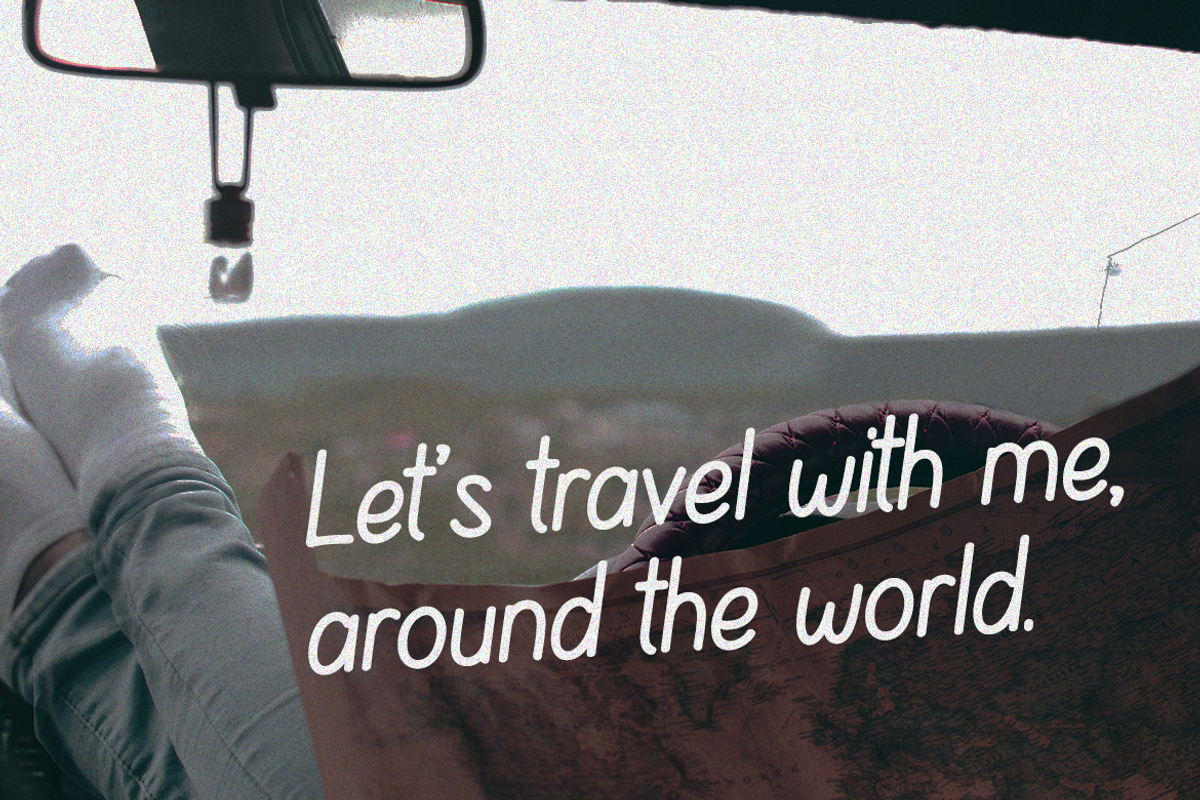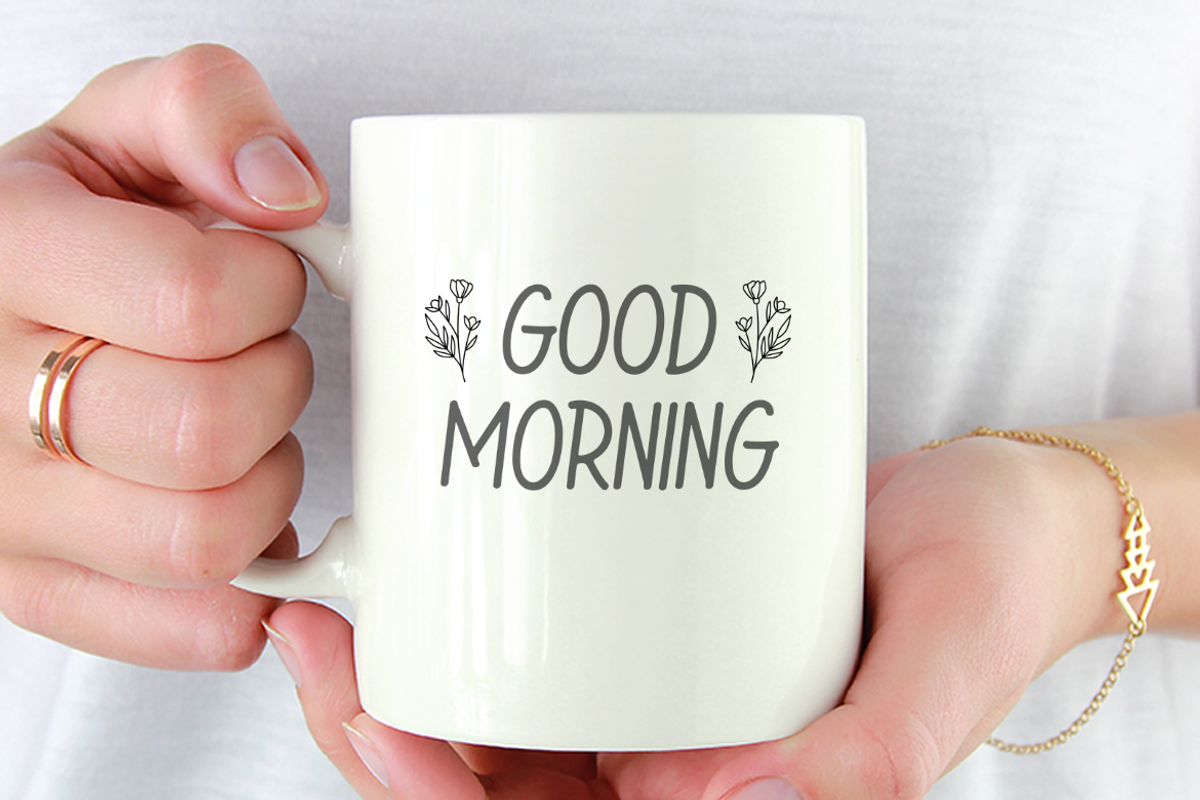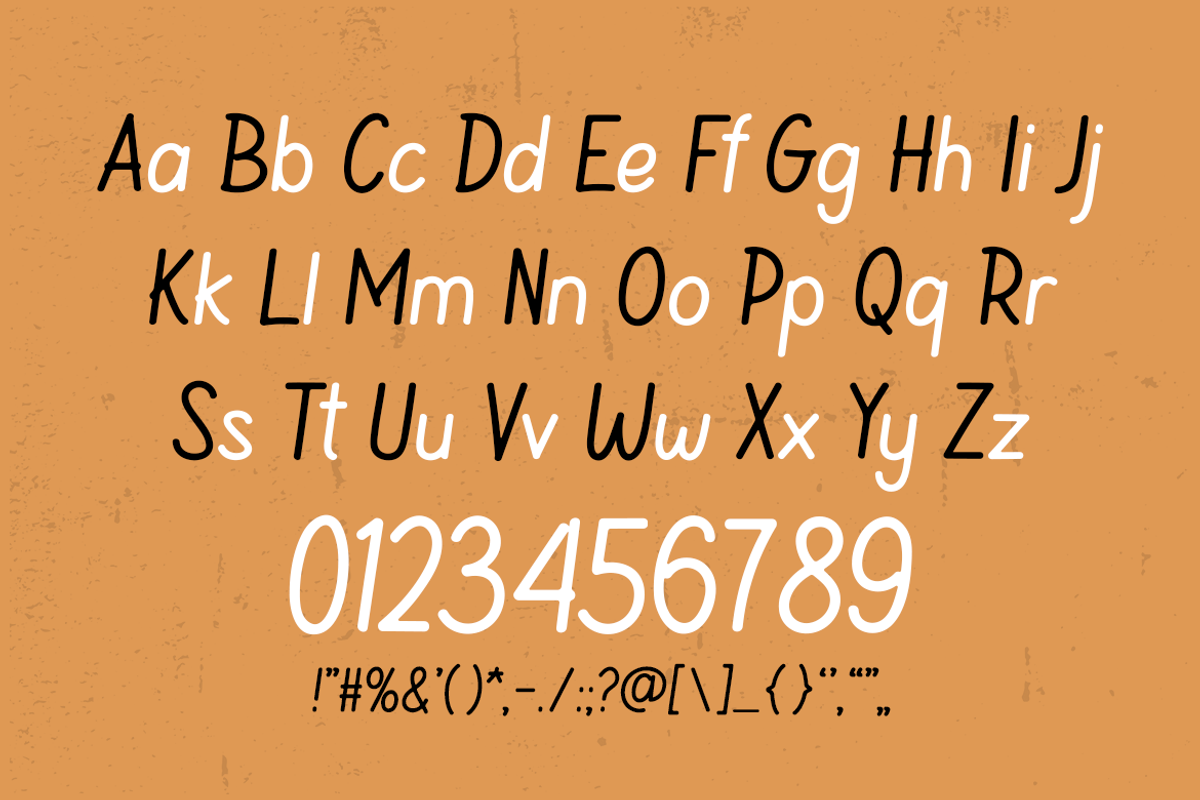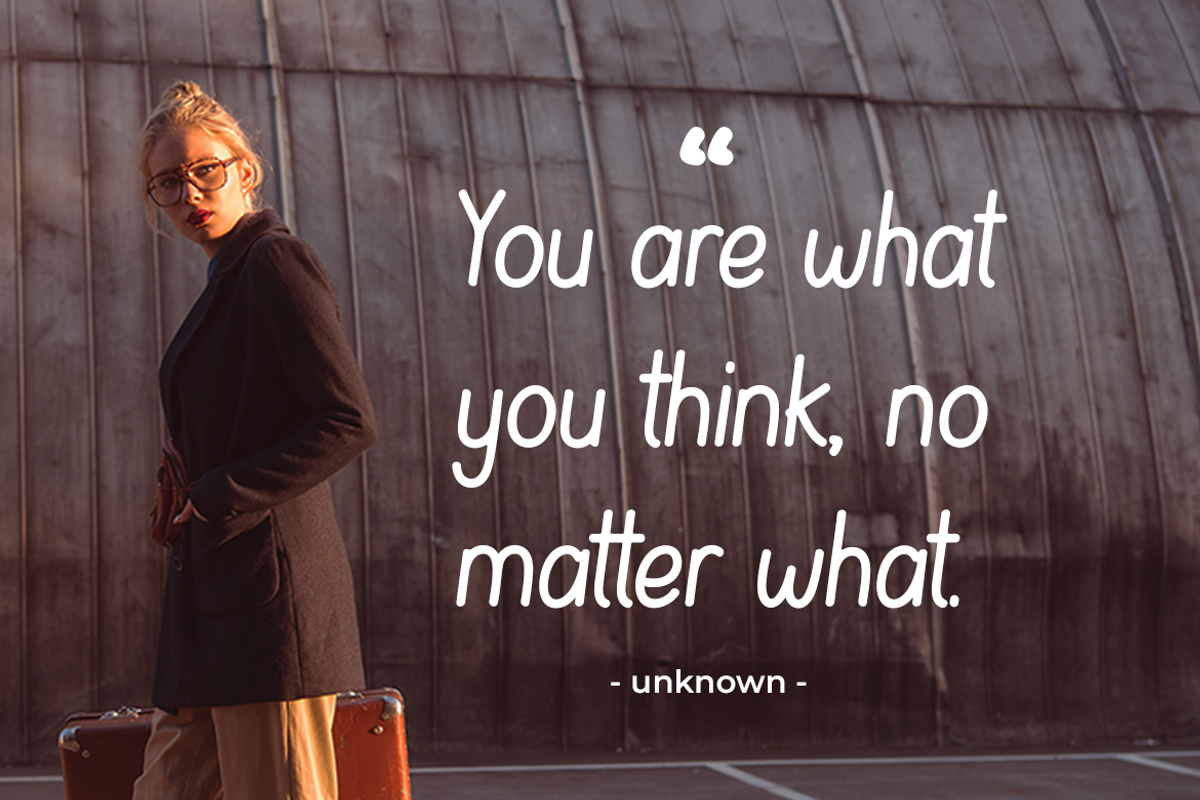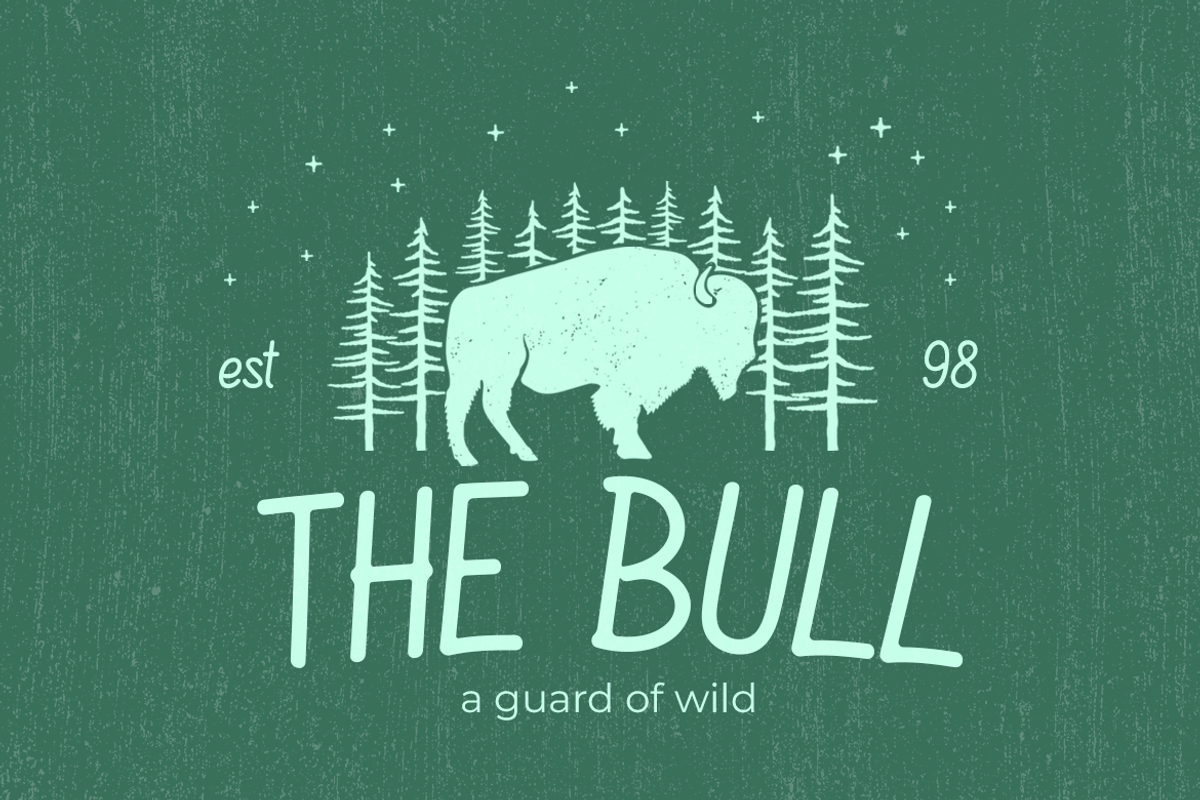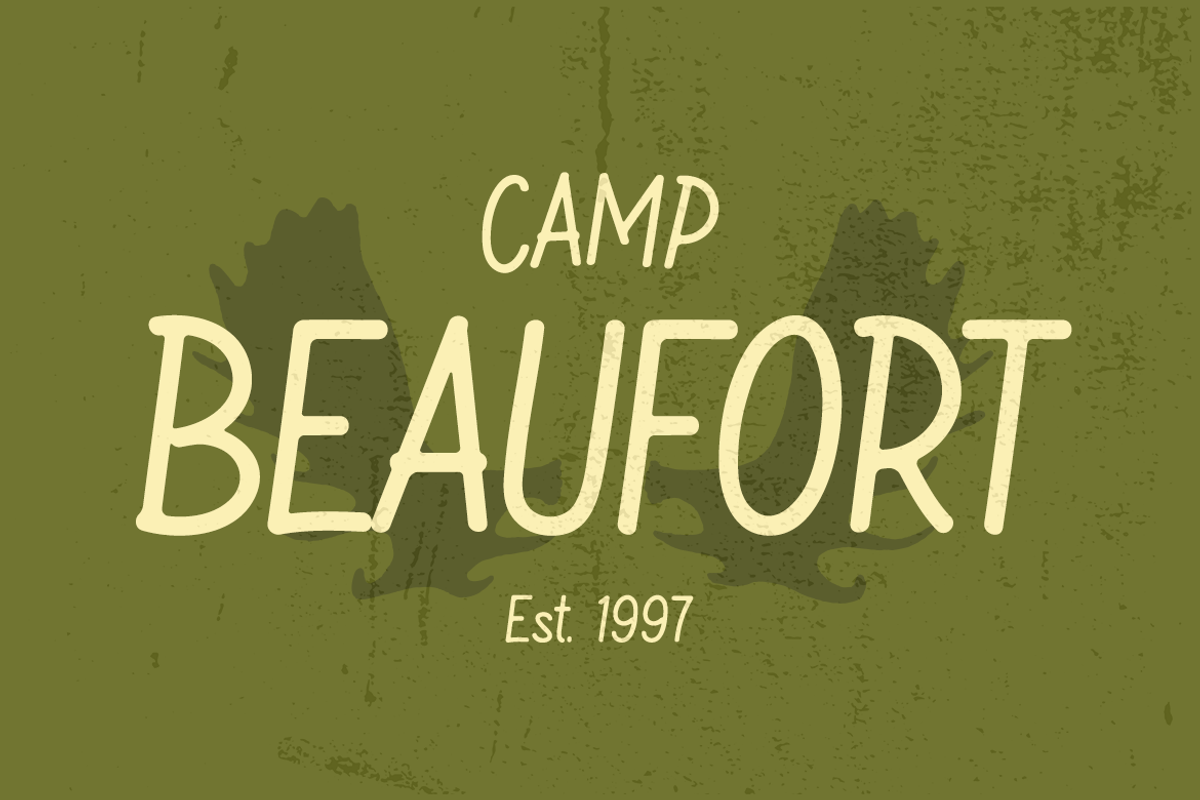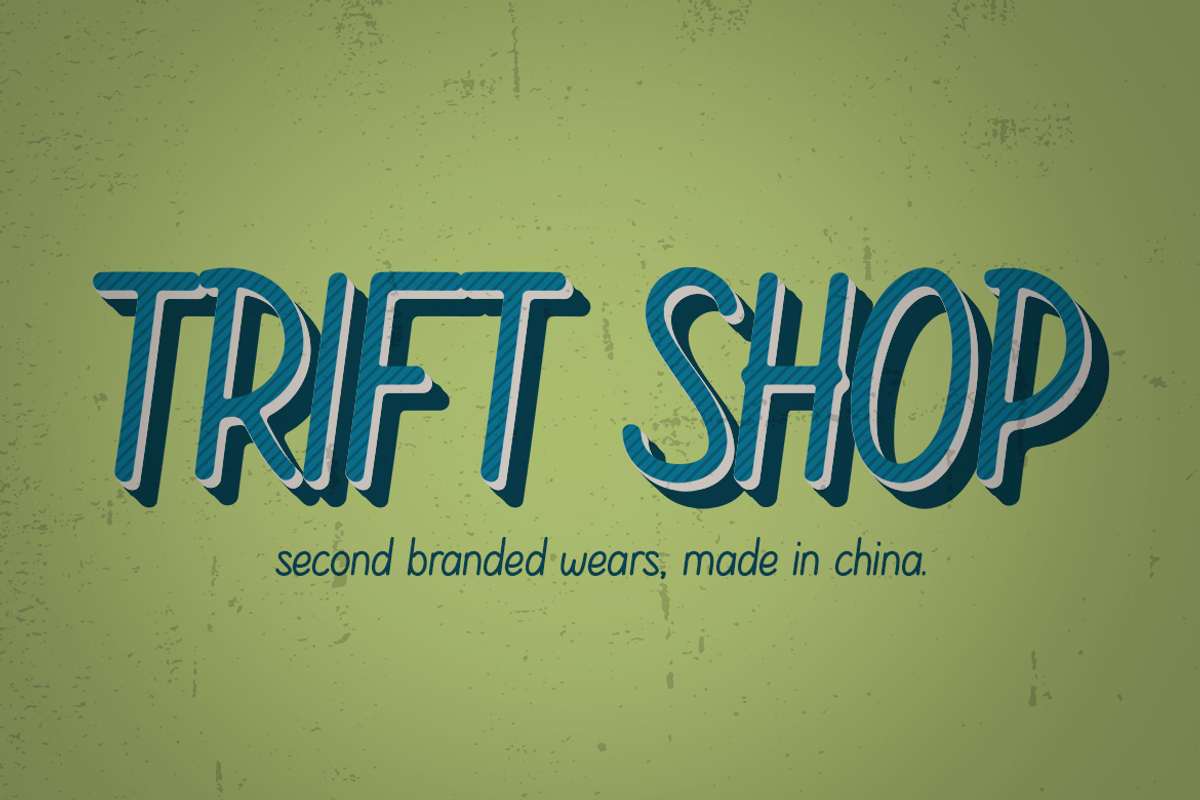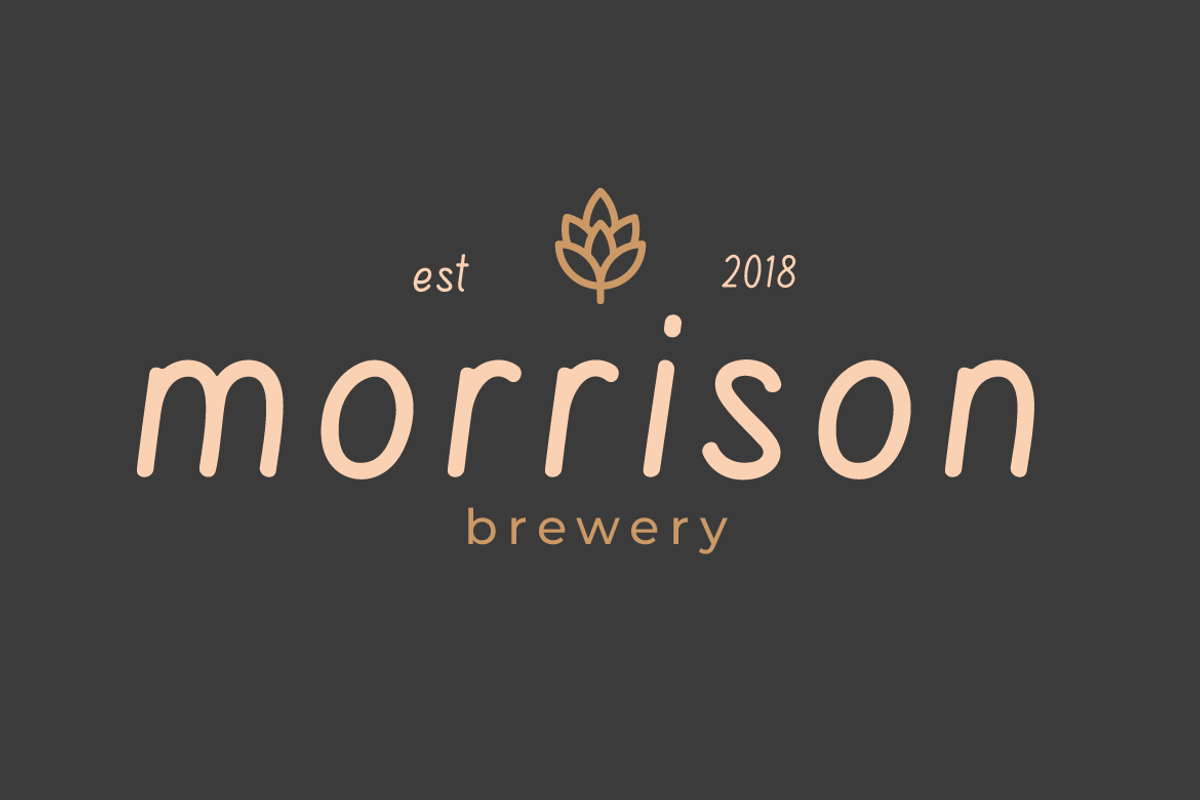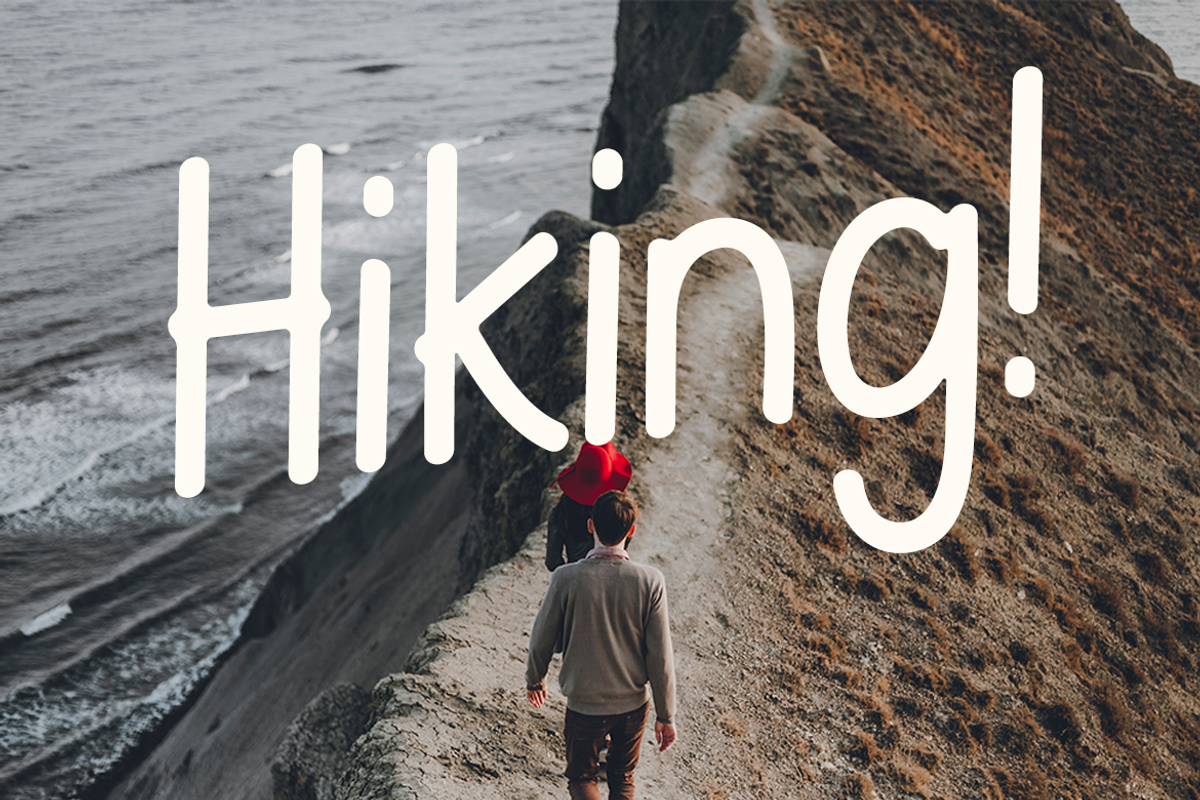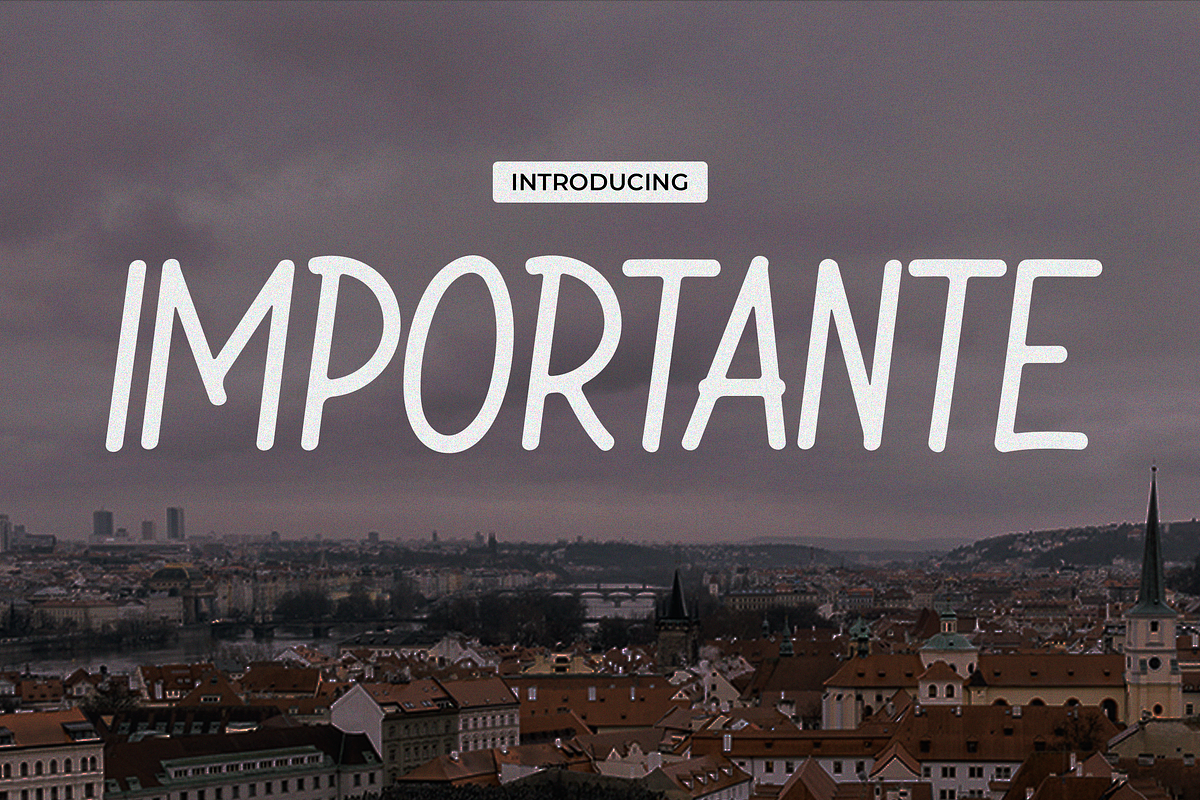
Importante
IMPORTANTE – Modern Sans Serif Font
Meet Importante – the font that effortlessly combines modern sophistication with a sleek sans-serif display style! Elevate your designs with this contemporary typeface, perfect for a multitude of creative pursuits. Whether you’re in the world of fashion, creating iconic logos, or adding a touch of elegance to quotes, invitations, posters, greeting cards, packaging, branding, cover albums, events, or postcards, Importante is your go-to choice for a clean and stylish aesthetic that goes beyond the ordinary